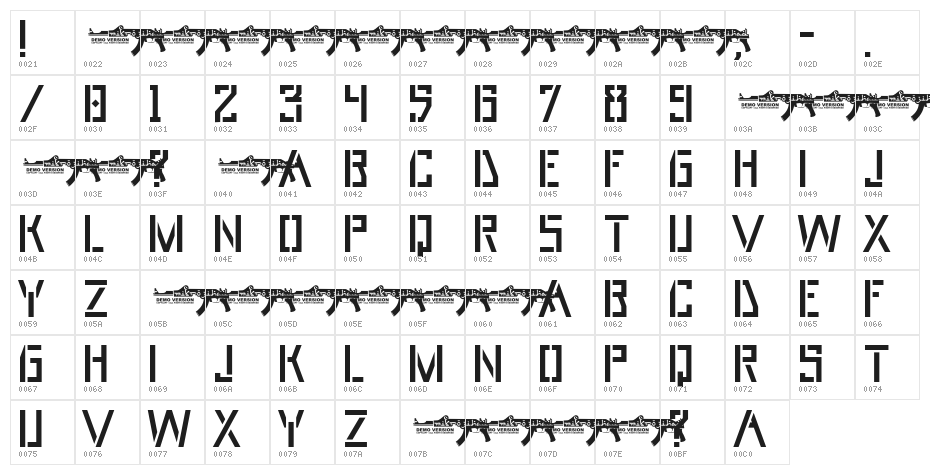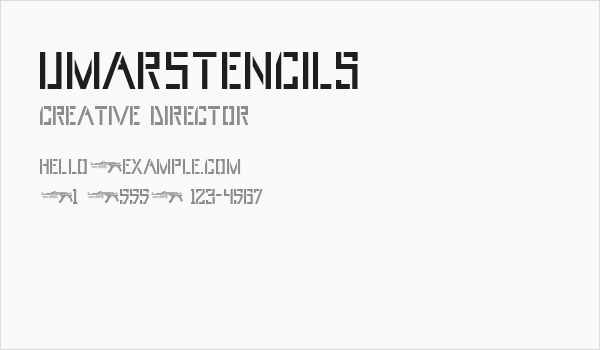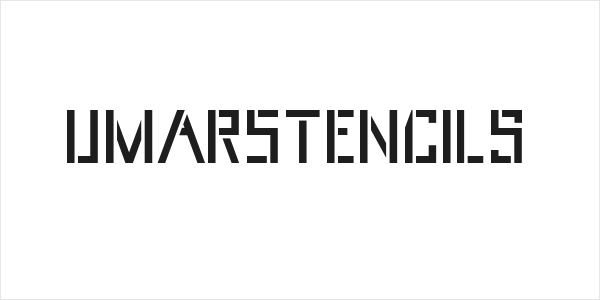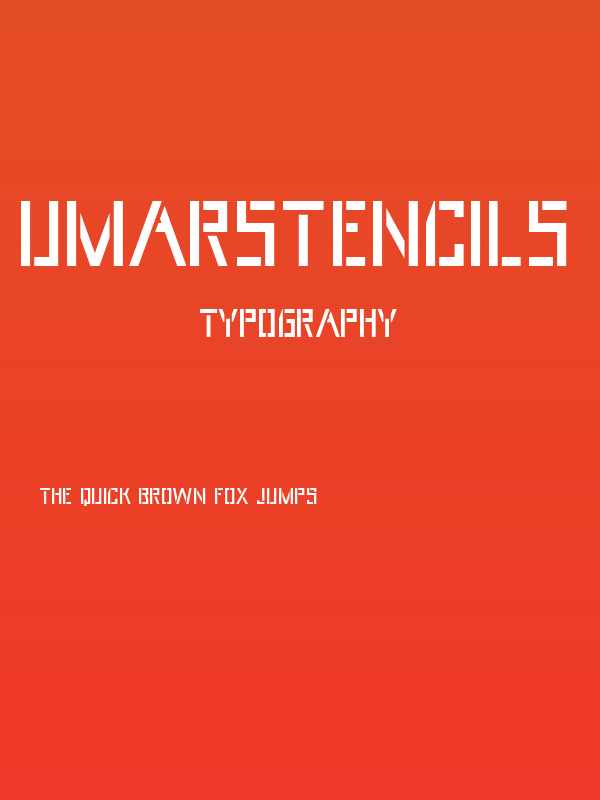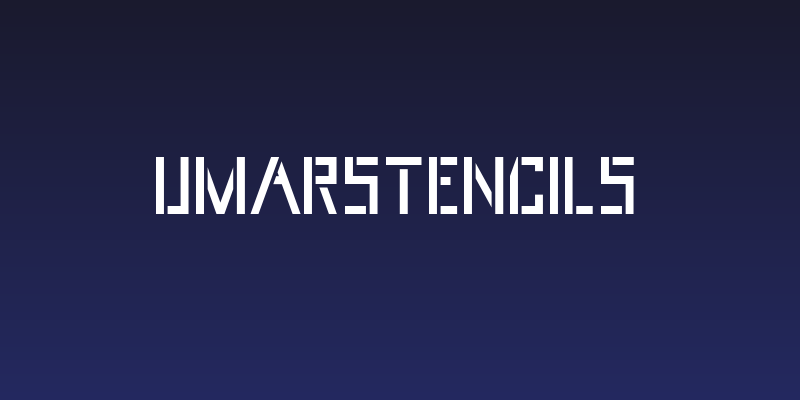
UmarStencils Font
UmarStencils Description
This font features a bold, stencil-like design with sharp, angular edges and a distinct geometric style. Each character is crafted with precision, creating a uniform appearance that is both modern and industrial. The uppercase letters are particularly striking, with their strong lines and cut-out sections that give a sense of ruggedness and utility. The numerals and special characters maintain this cohesive look, making the font suitable for impactful and attention-grabbing designs. Its unique style is reminiscent of military or industrial signage, offering a bold statement in any project.
| Proposed Projects | Ideal for military-themed designs, industrial branding, posters, and signage. |